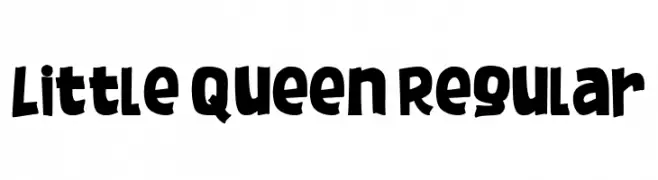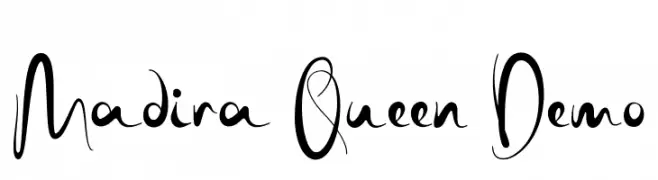
• Little Queen Regular
( Fonts by Creatype Studio )
A bold, playful font with exaggerated curves and a whimsical style.
• Madira Queen Demo
A whimsical and elegant script font with sweeping curves and playful loops.